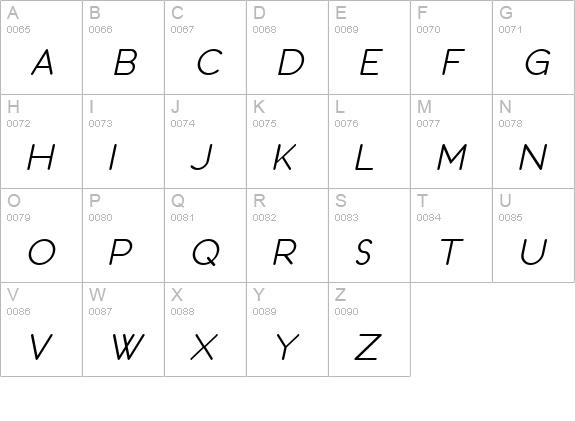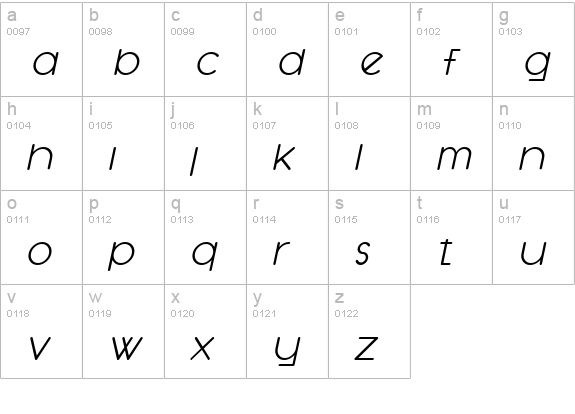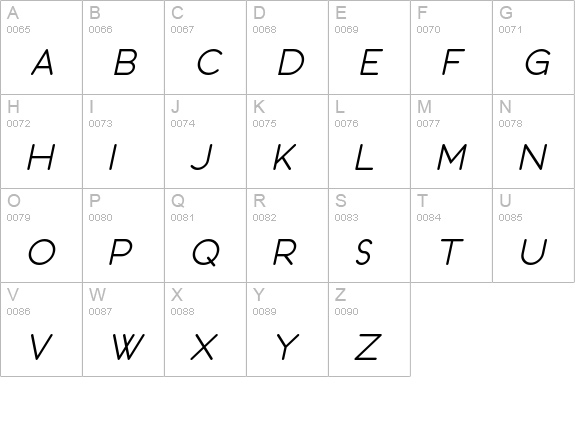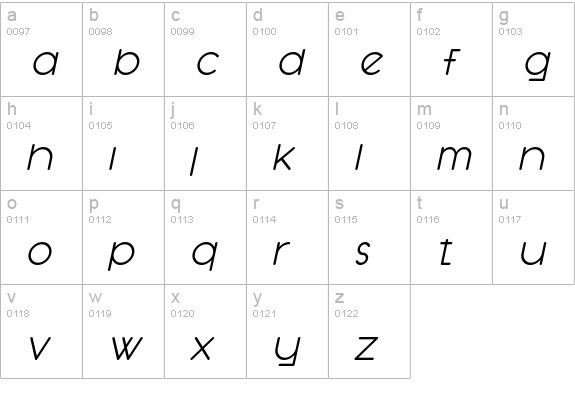
SF Orson Casual Light Oblique Font Details
SF Orson Casual Light Oblique is a refined, elegant, italic variant in the SF typeface family \xE2\x80\x94 well suited to elegant body text, refined sub-headings, and luxury branding.
The SF Orson Casual Light Oblique font is a stunning display of elegance and sophistication. Its sleek and modern design is perfect for adding a touch of sophistication to any project. The light oblique style adds a subtle twist to the traditional font, creating a unique and eye-catching look. This font is ideal for a variety of design projects, whether it's creating beautiful logos, stylish branding materials, or captivating social media posts. Its versatility allows it to adapt to different styles and themes effortlessly, making it a must-have for any designer. One of the best things about the SF Orson Casual Light Oblique font is that it is free. Yes, you read that right - this incredible font is freely available to download at FontsMarket.com. It's a fantastic opportunity to enhance your design arsenal without spending a penny. With its clean lines and modern aesthetic, the SF Orson Casual Light Oblique font is sure to make a lasting impression on your audience. Its legibility and readability ensure that your message will be conveyed with clarity and impact. Whether you're creating a poster, a website, or a magazine layout, this font will elevate your design and make it truly stand out. Don't miss out on the chance to elevate your design projects with the SF Orson Casual Light Oblique font. Download it for free at FontsMarket.com and let your creativity soar.